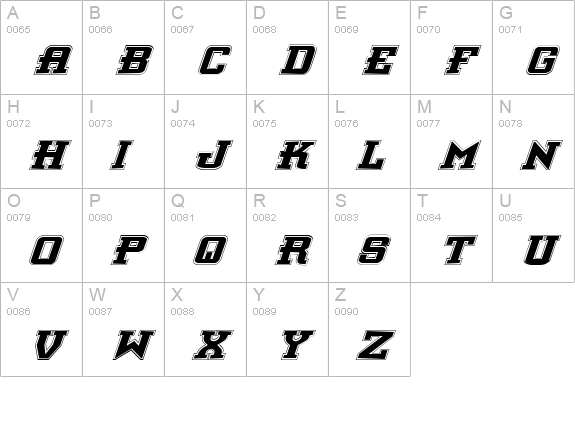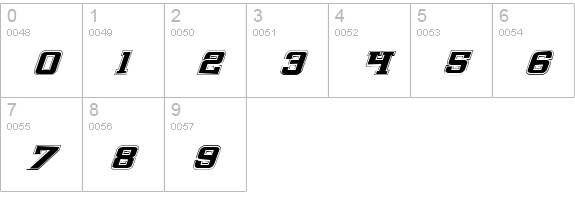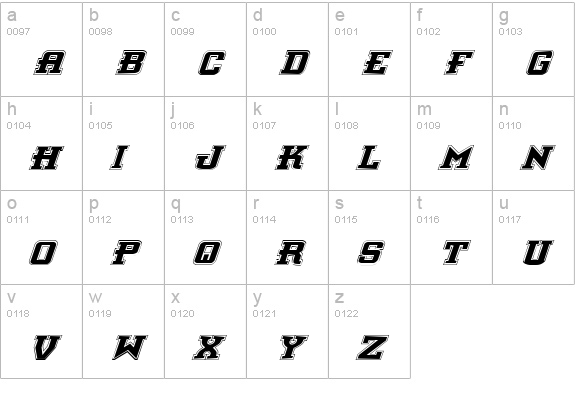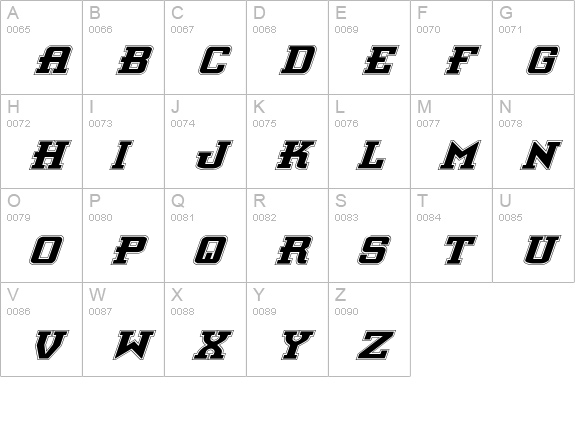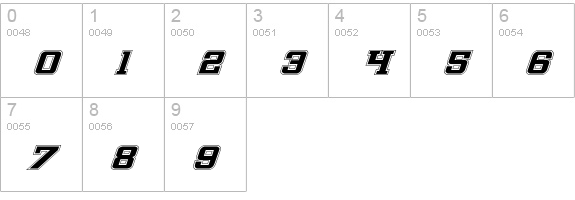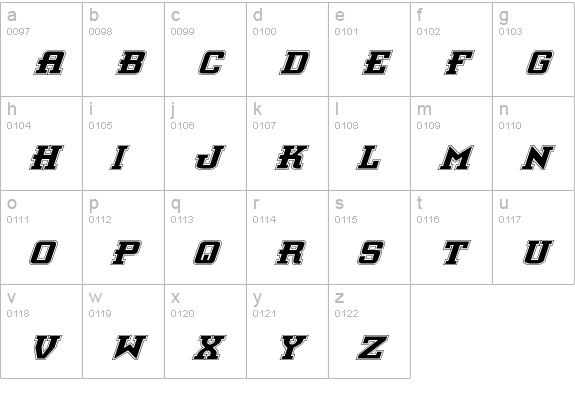
Interceptor Pro Italic Font Details
Interceptor Pro Italic is a distinctive, italic variant in the Interceptor typeface family \xE2\x80\x94 well suited to design and typography projects.
Interceptor Pro Italic font is a sleek and modern typeface designed to add a touch of sophistication to your projects. With its italic style, this font exudes elegance and professionalism, making it perfect for a wide range of design applications. Its clean lines and distinctive curves give it a unique and eye-catching appearance that will surely make your designs stand out. The best part? Interceptor Pro Italic font is available for free download at FontsMarket.com, making it accessible to all designers looking to enhance their work with a stylish and versatile typeface. Whether you're working on branding, editorial design, or any other creative project, Interceptor Pro Italic font is sure to elevate your designs and leave a lasting impression on your audience. Download it today and take your designs to the next level!